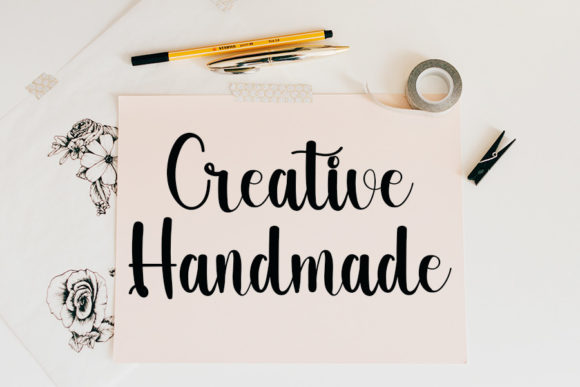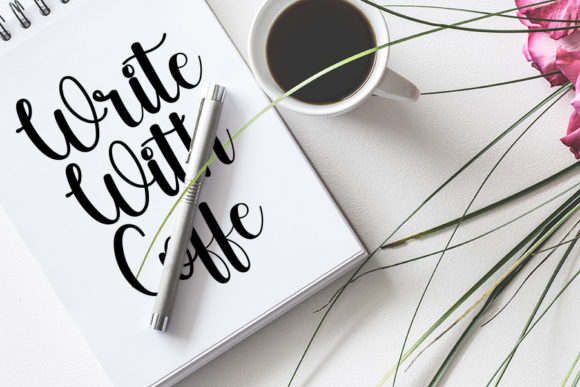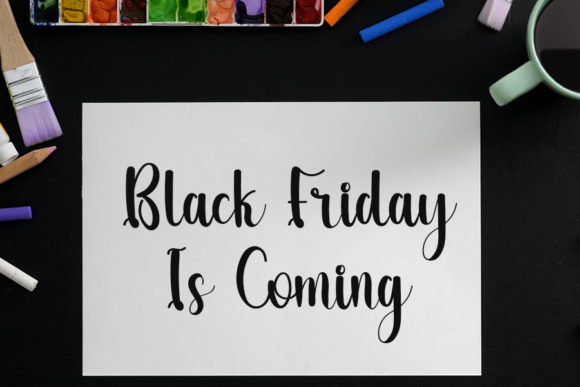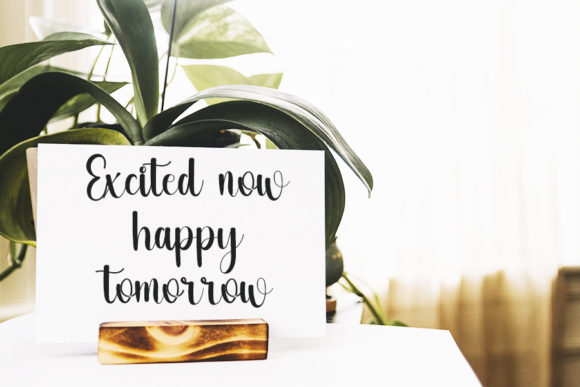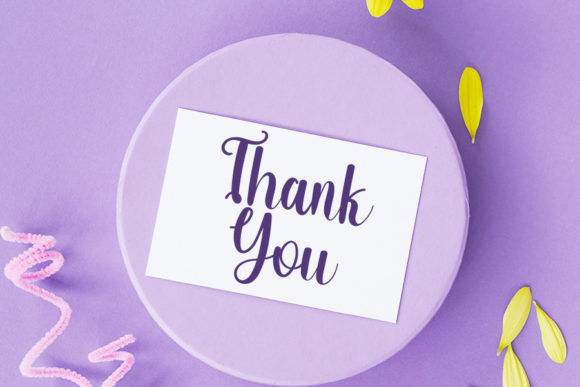
About Wintersoons Font
Wintersoons is an elegant and dainty handwritten font that features sweet and delicate swashes. This original look will appeal to a wide range of crafty ideas, from letterheads and titles, to stationery.